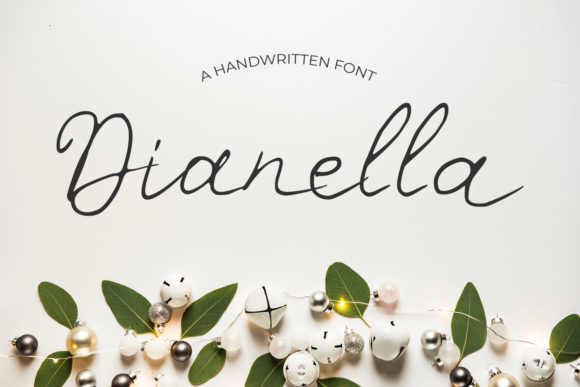
Introducing Dianella, an exquisite script font family that exudes elegance and charm. Crafted with meticulous attention to detail by the talented DmDesignsStoreArt, Dianella is a versatile and captivating typeface that will add a touch of sophistication and individuality to your creative projects.
Soar into a world of visual enchantment with Dianella, a font that dances and twirls across the page. Its graceful curves and delicate flourishes evoke a sense of timeless beauty, while its modern and stylish appeal keeps it firmly rooted in the present. Whether you're designing wedding invitations, thank-you cards, logos, or any project that calls for a personal touch, Dianella is your perfect companion.
Dianella is a remarkably adaptable font family that lends itself effortlessly to a wide range of design styles. Its inherent versatility makes it a treasure trove of creative possibilities. From the delicate charm of vintage-inspired designs to the sleek modernity of contemporary layouts, Dianella seamlessly adapts to your vision, adding an air of exclusivity and sophistication.
Unleash your creativity with Dianella, the ultimate font for creating bespoke designs that leave an unforgettable impression. Its meticulously crafted characters possess an inherent charm that enchants the eyes and captivates the senses. Embrace the power of Dianella to elevate your designs to new heights, transforming them into works of art that resonate with your audience.